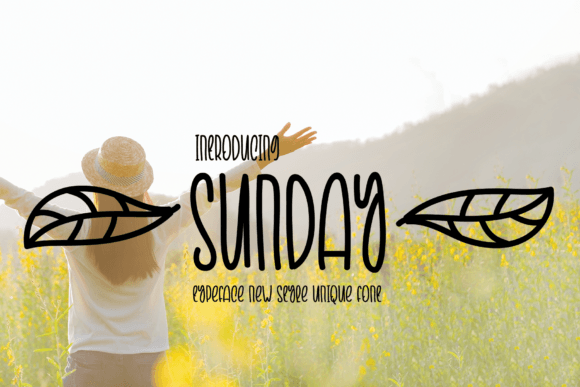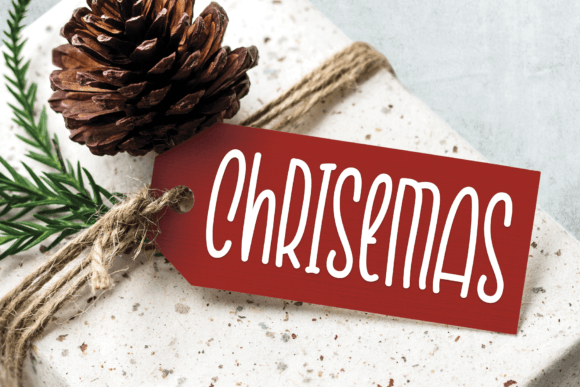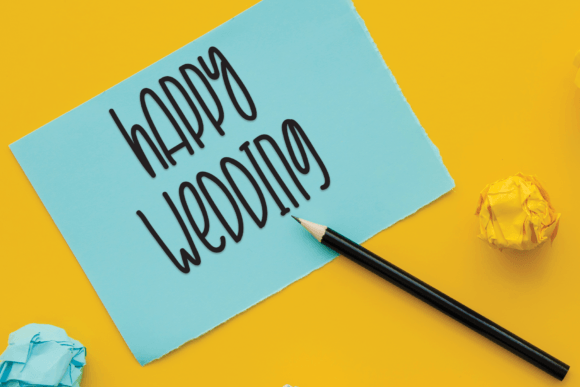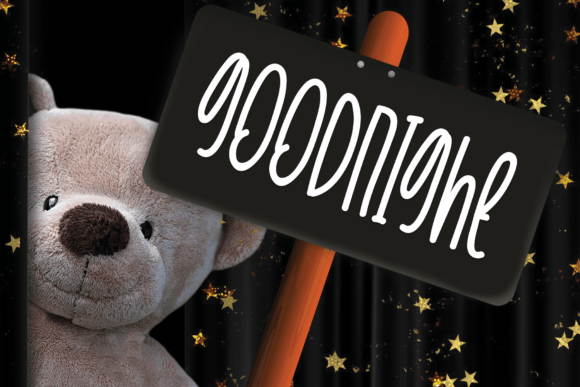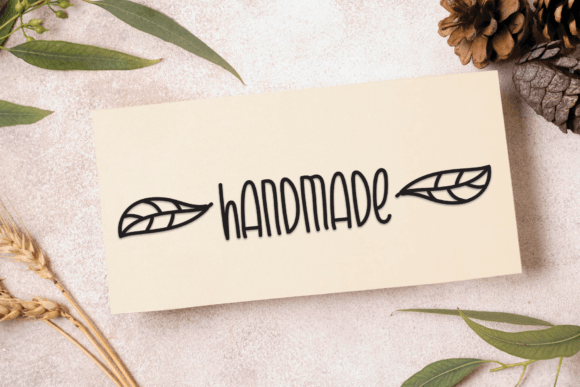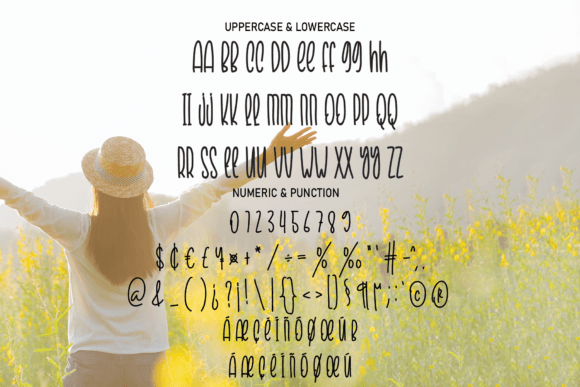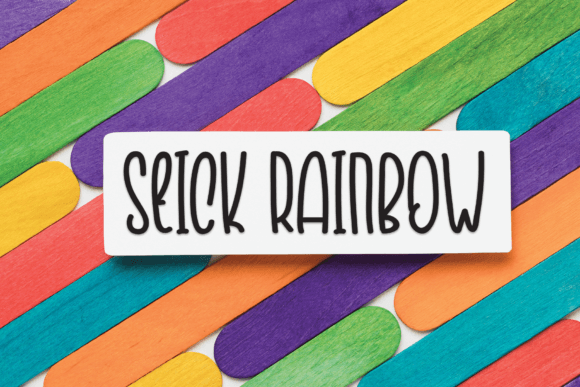
Sunday Font
About Sunday Font
The Sunday Font download brings a soft, sweet touch to your design projects. This friendly handwritten typeface features smooth curves and gentle strokes that add warmth and charm to any visual creation. Its casual elegance makes it suitable for everything from special event stationery to trendy social media designs.
Whether you’re planning a wedding, launching a handmade product, or designing heartfelt graphics, Sunday is the font that adds personality and style without overpowering your message.
Where to Use Sunday Font
With its approachable and playful look, the Sunday Font download fits perfectly in both print and digital spaces. Here are some ideal uses:
• Wedding invitations and event announcements
• Greeting cards, thank-you notes, and stationery
• Instagram graphics and Pinterest quotes
• Product packaging and handmade branding
• Wall art, journals, and digital planners
• Blog headers, promo banners, and newsletters
From intimate celebrations to polished campaigns, Sunday brings a heartfelt, handwritten feel to your work.
Why Choose the Sunday Font Download?
When you download Sunday Font, you’re getting a beautiful handwritten style that offers:
• A full character set with uppercase and lowercase letters
• Natural, flowing handwriting for a soft and stylish look
Its balance of simplicity and charm makes it accessible for beginners and professionals alike.
Add a Sweet Touch with Sunday Font
The Sunday Font download is more than just a typeface – it’s a creative asset that enhances your work with joy and friendliness. Whether you’re writing a romantic message, branding a product, or designing for a holiday season, Sunday delivers soft sophistication in every stroke.